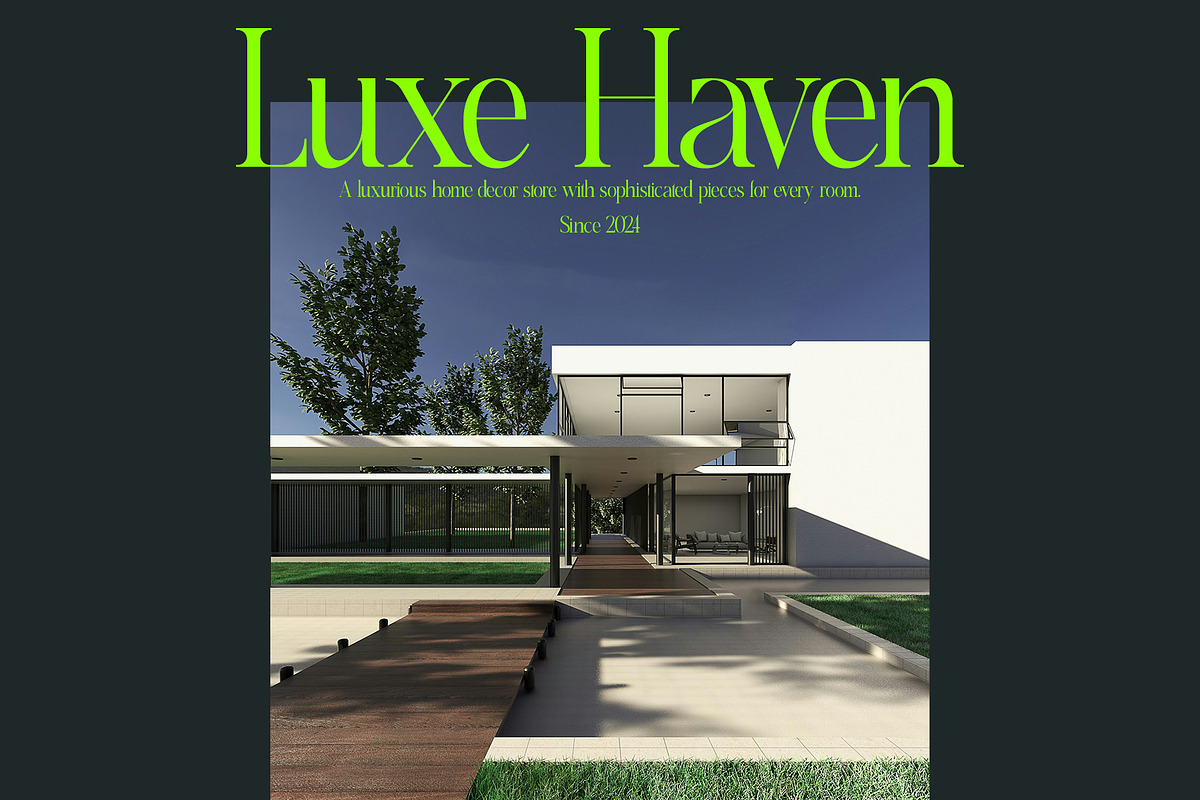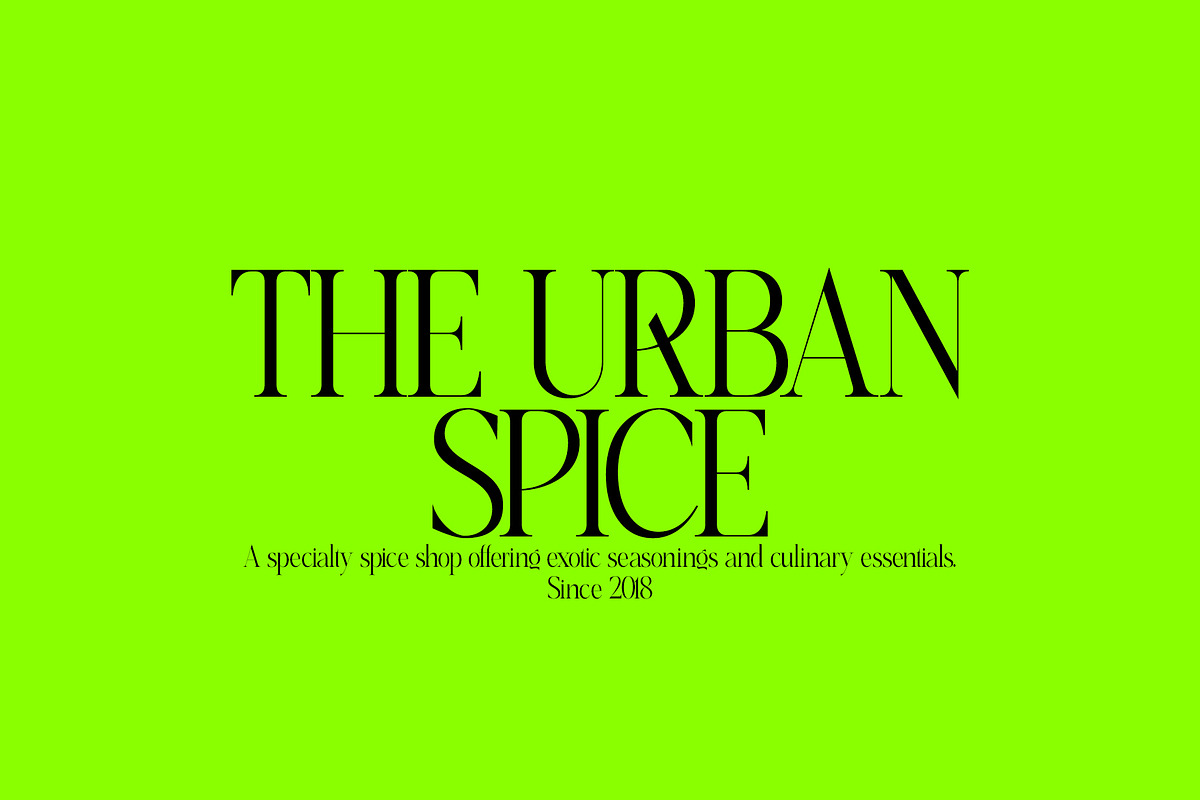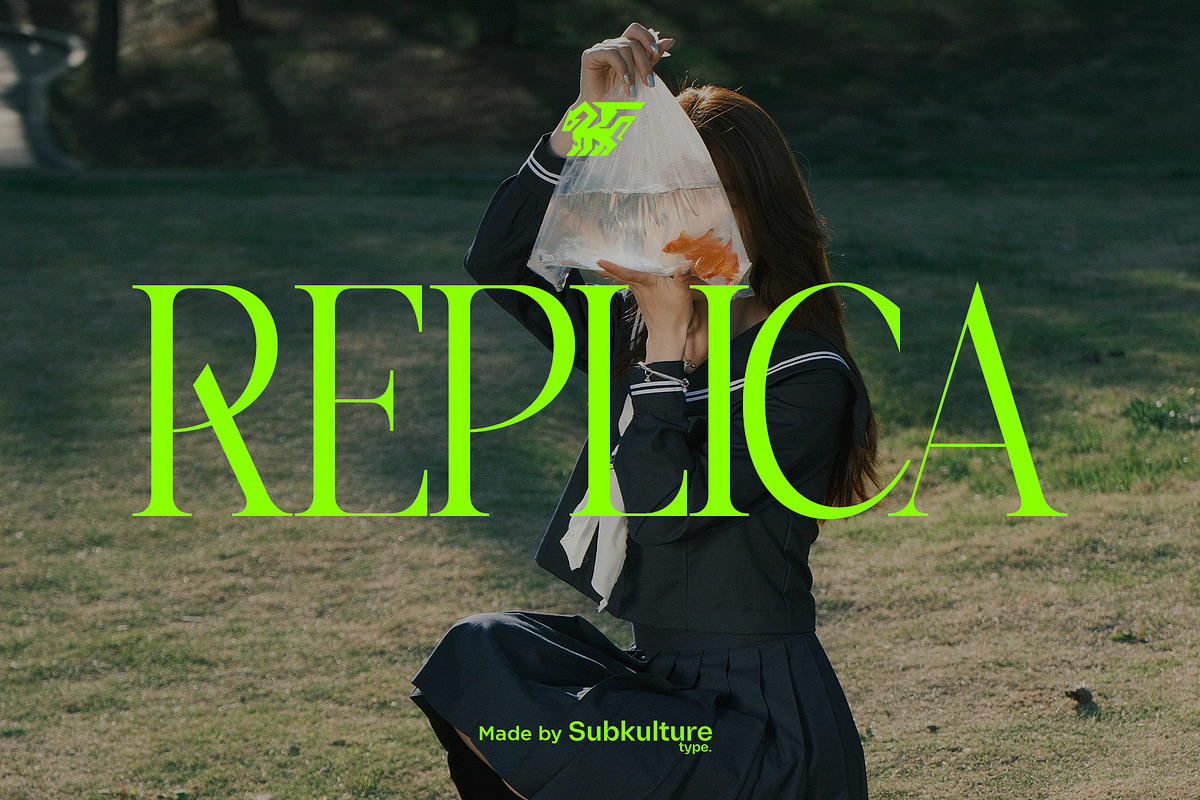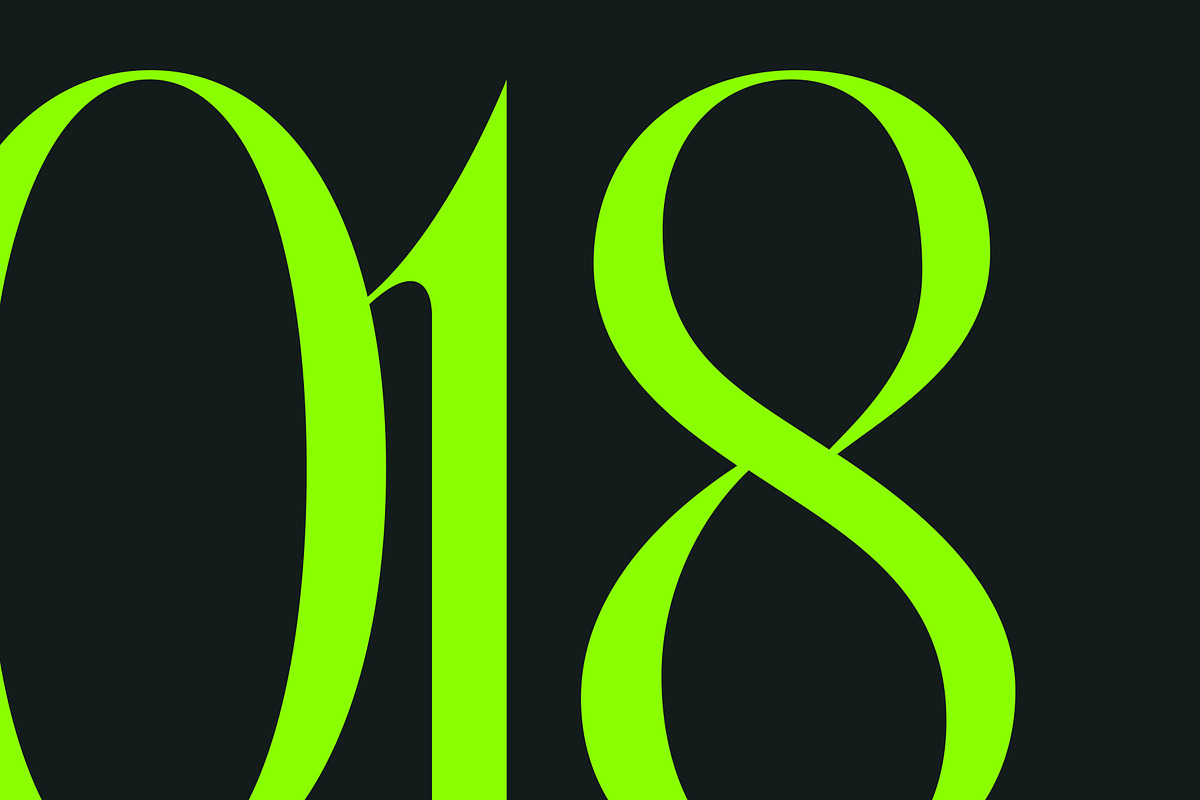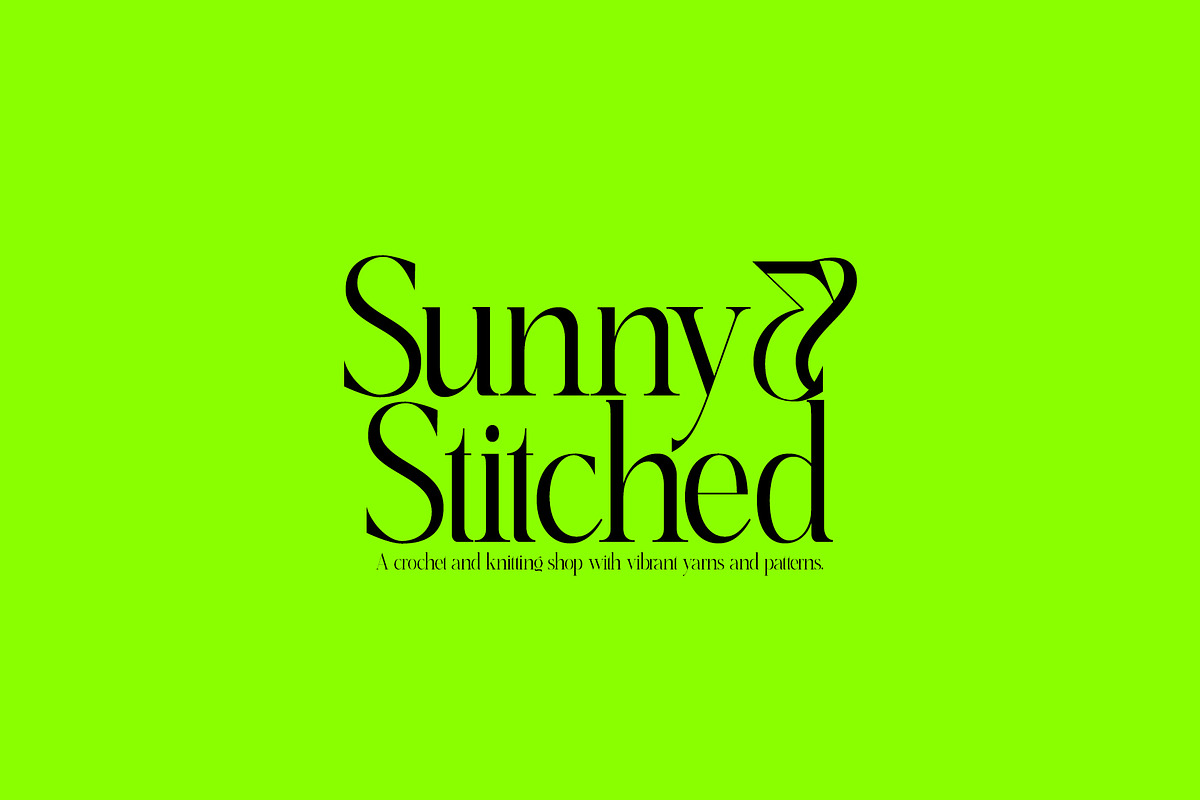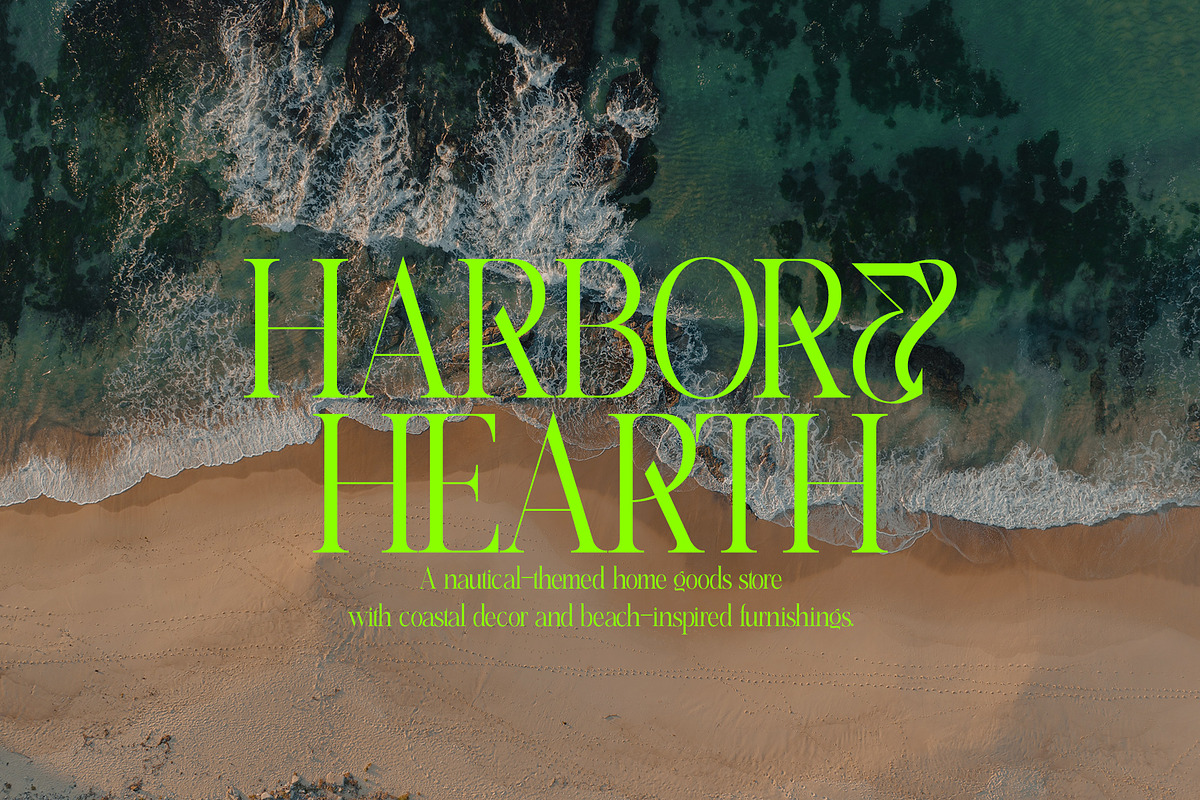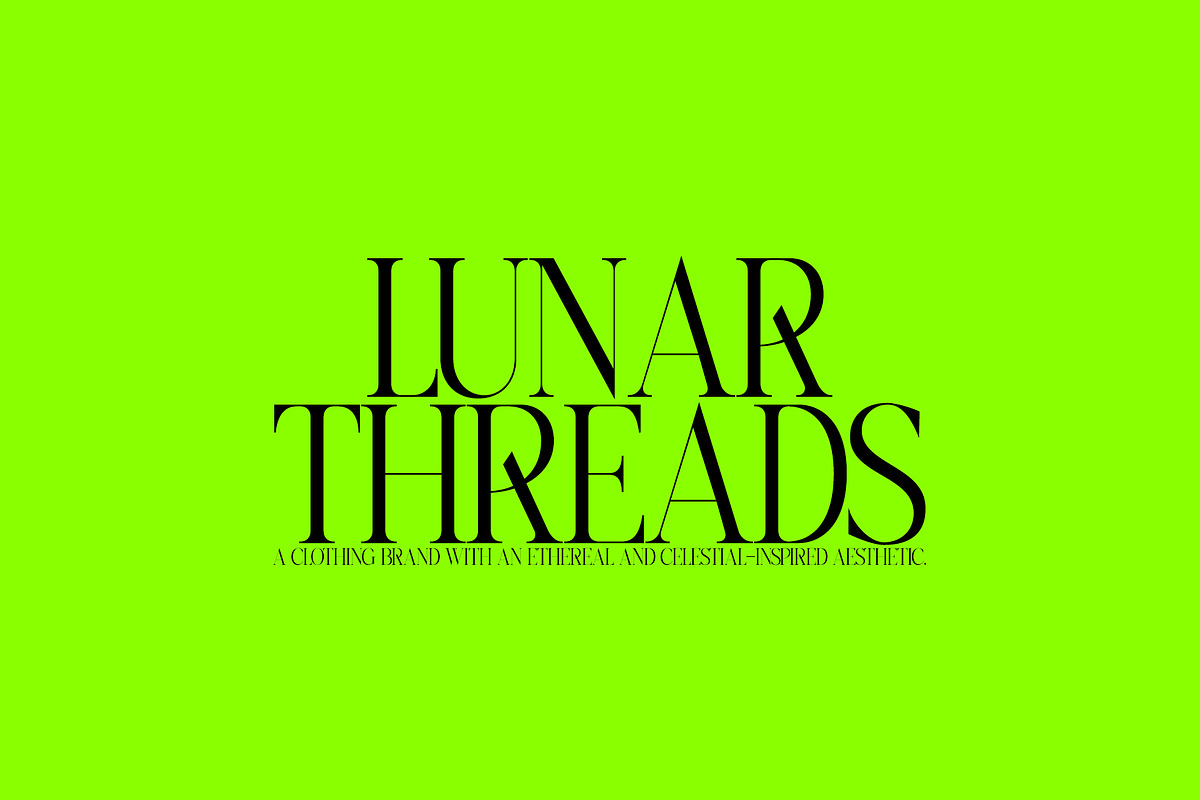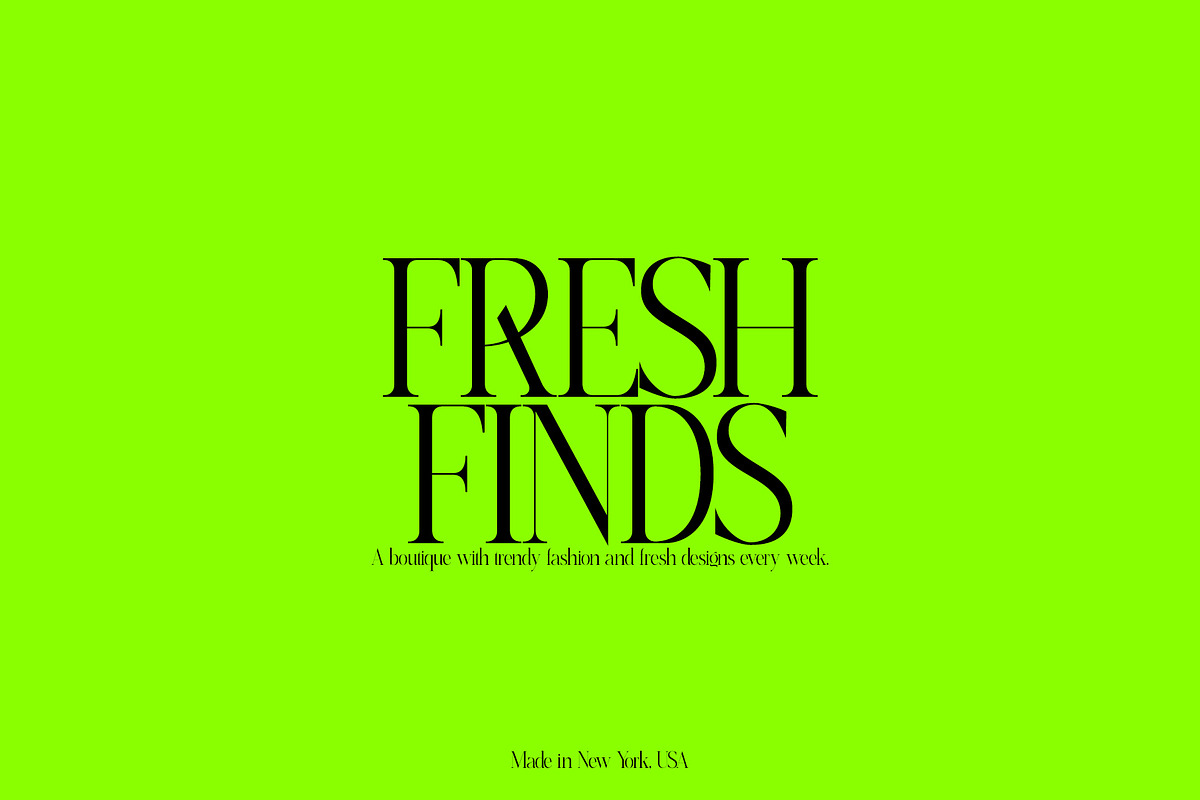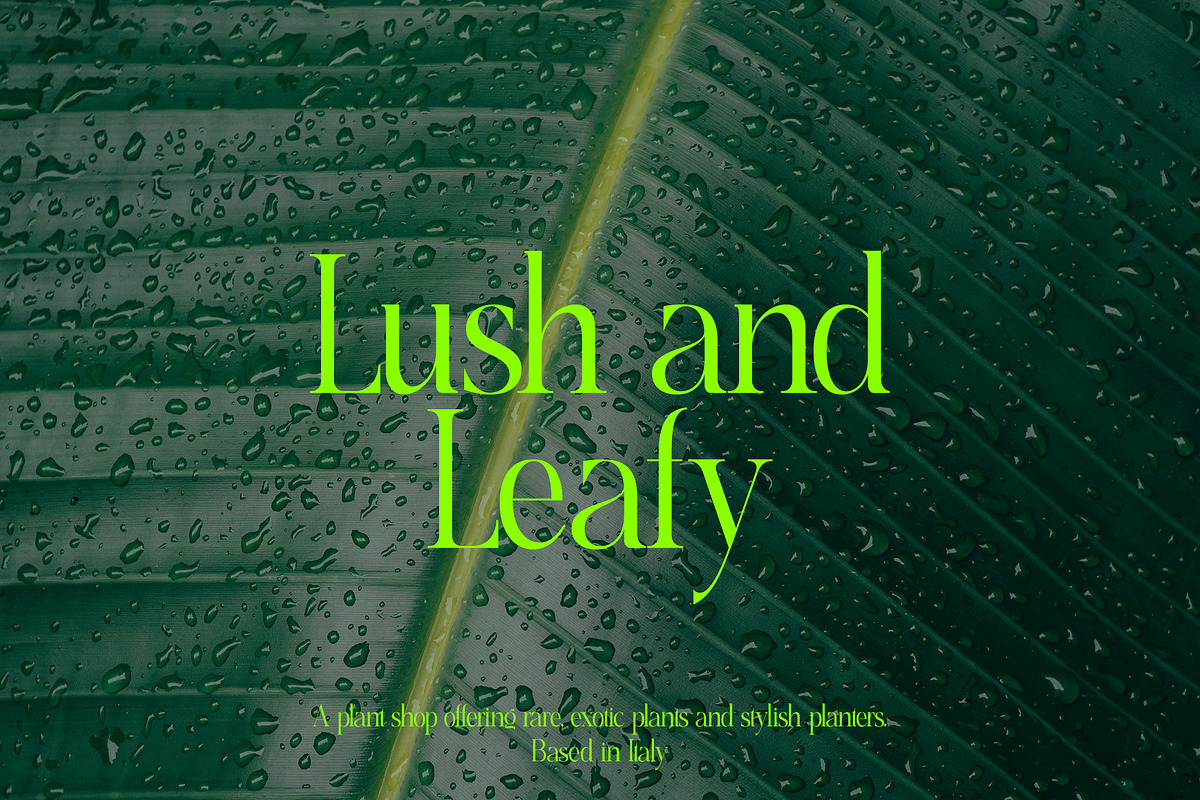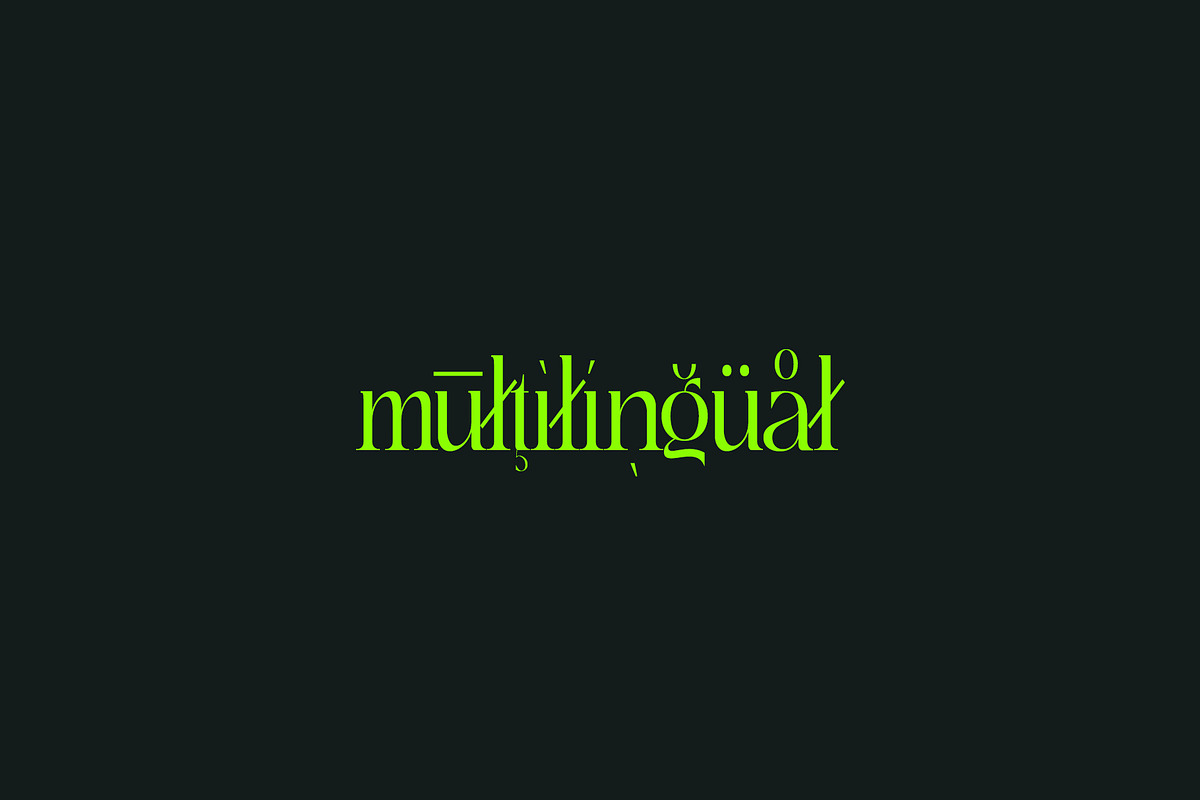
Replica - Elegant & Modern Serif
Replica - Elegant & Modern Serif is a refined and sophisticated typeface that seamlessly blends classic elegance with contemporary flair. Featuring clean, well-defined serifs and balanced proportions, Replica is perfect for projects that require a touch of luxury and timeless charm. Its modern, yet traditional design makes it ideal for branding, editorial layouts, high-end packaging, and any design work where style and readability are paramount. With its graceful curves and sharp edges, Replica evokes a sense of sophistication while remaining highly legible, making it a versatile choice for both print and digital applications.
Replica features uppercase & lowercase letters, numbers & symbols, multilingual support, over 250+ glyphs.